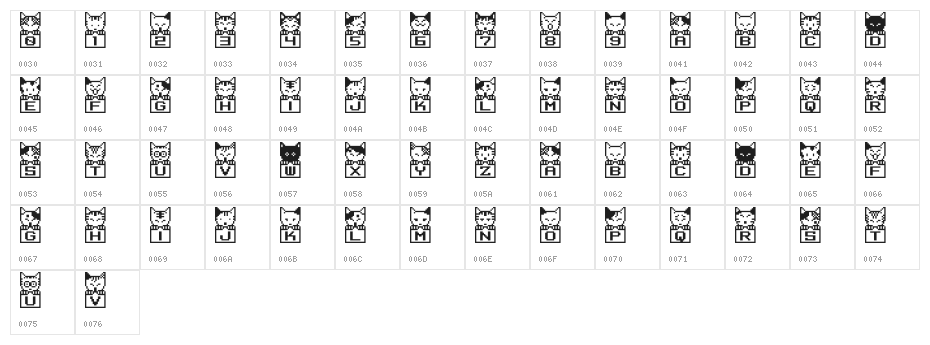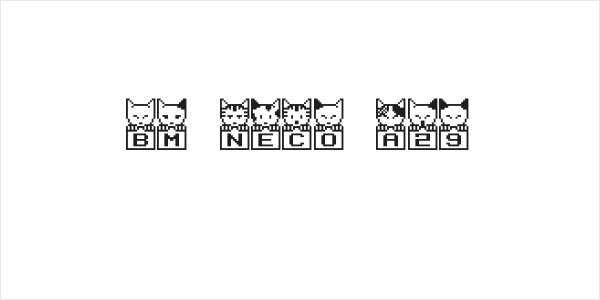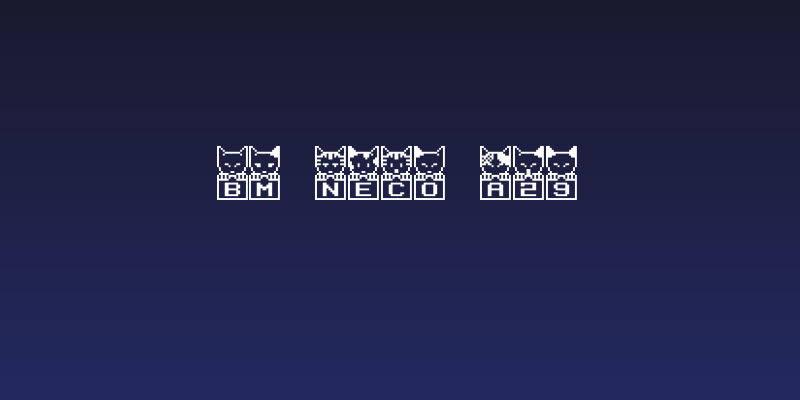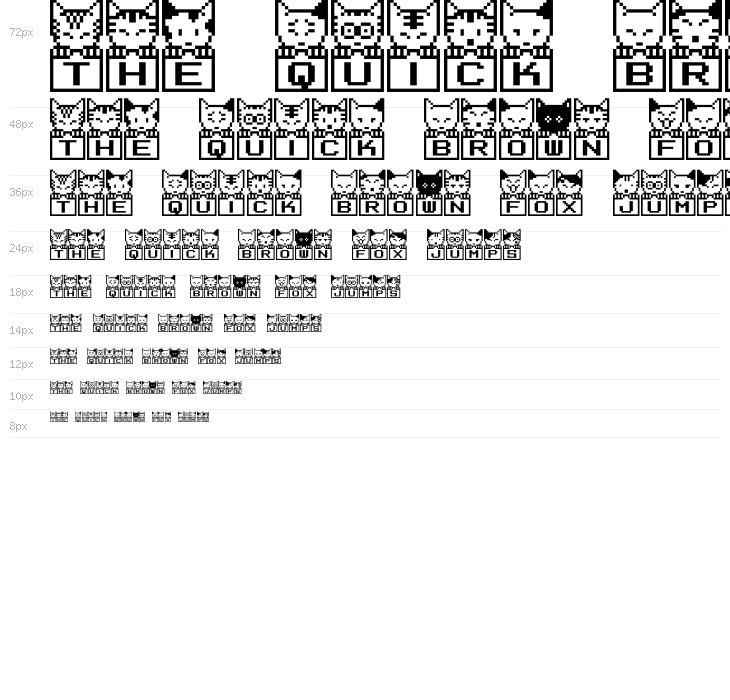
BM neco A29 Font
BM neco A29 Description
This playful and whimsical font features each character encased in a square with a pixelated cat design above it. The letters and numbers are bold and easy to read, making them stand out against the charming cat illustrations. The font has a distinct retro, pixel-art style, reminiscent of early video games. Each character is uniform in size, providing a consistent and structured appearance. The combination of the bold characters and the cute cat designs creates a unique and engaging visual experience, perfect for projects that aim to capture a sense of fun and nostalgia.